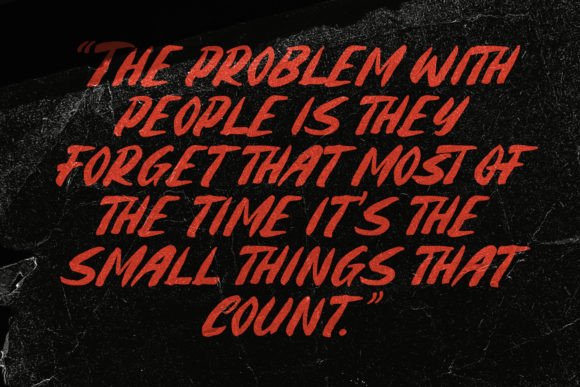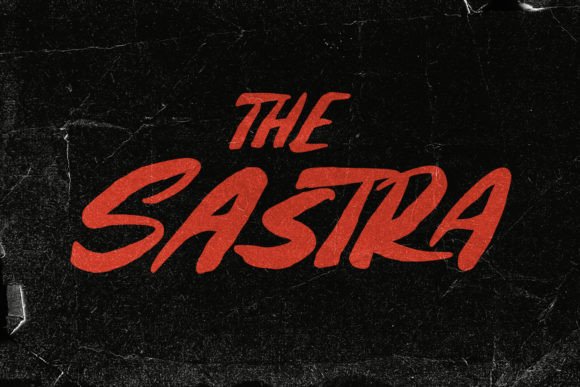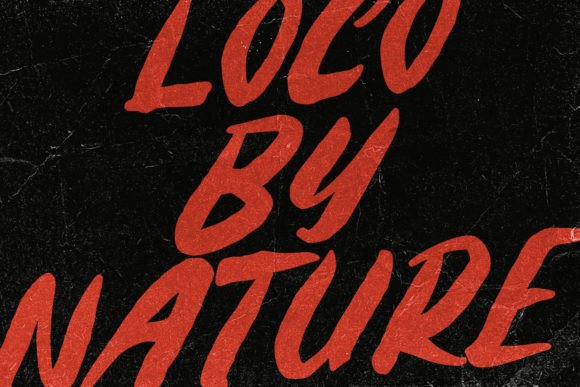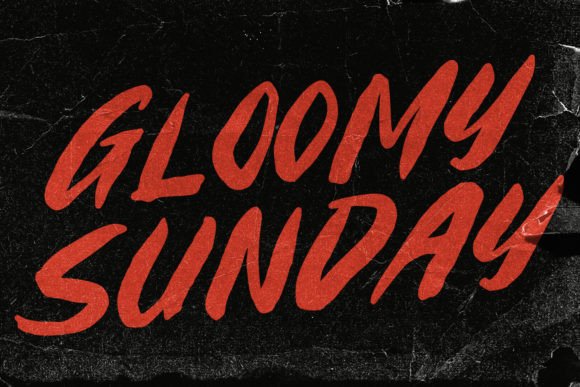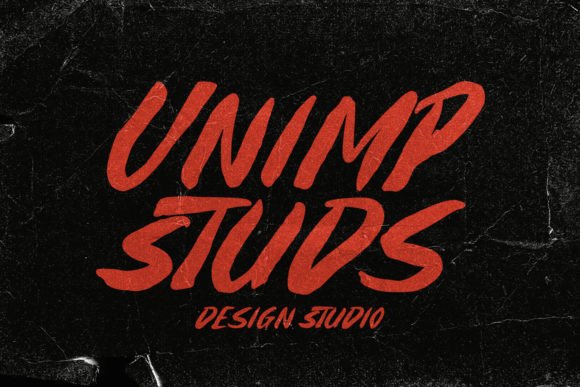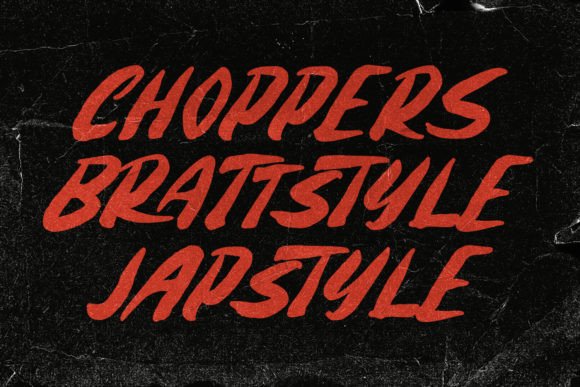
Introduction to Fraxcrwon Font
Fraxcrown is a modern and fun display font with cool, horror vibes.
Add it to any of your creative projects, and it will seduce your audience with its style and form .